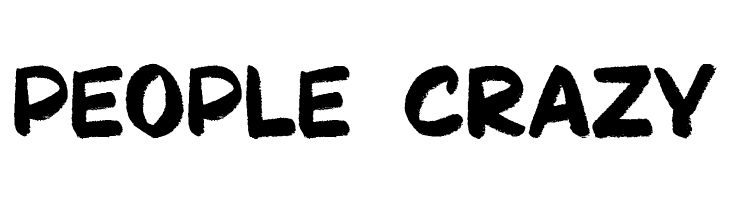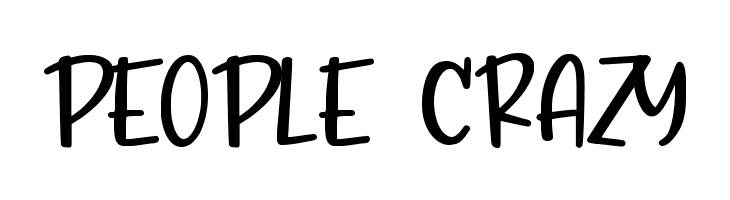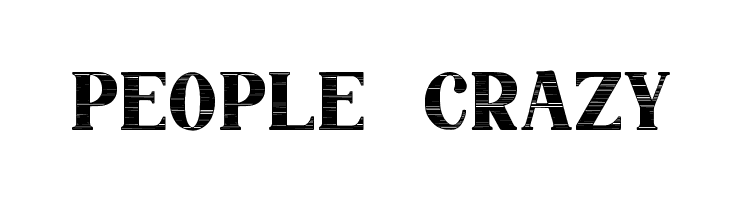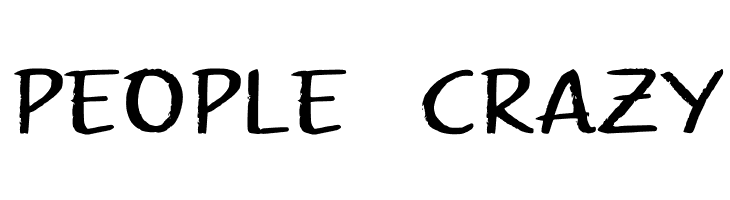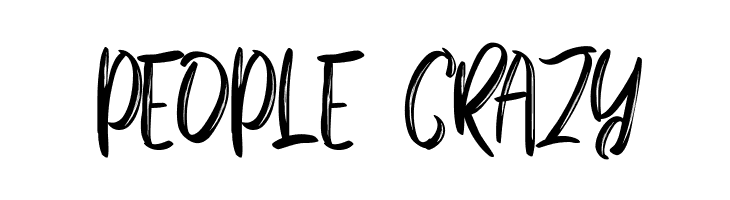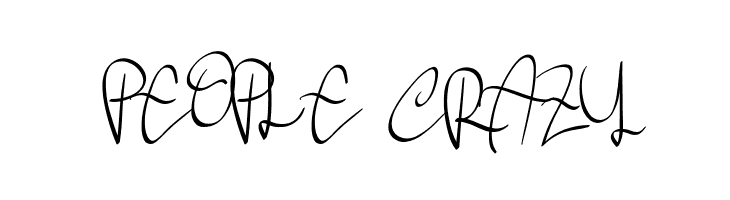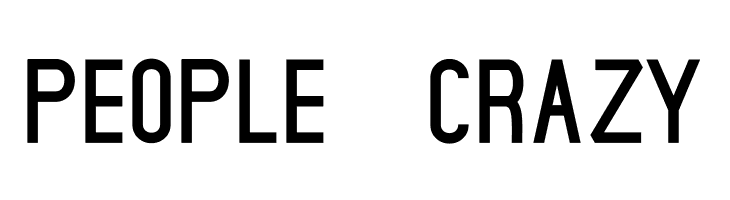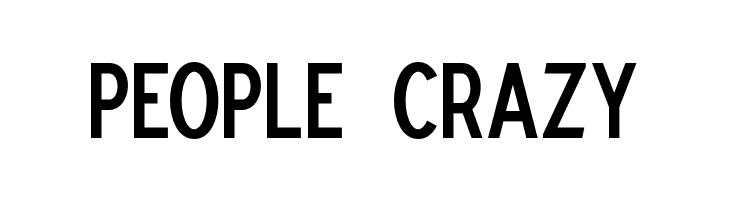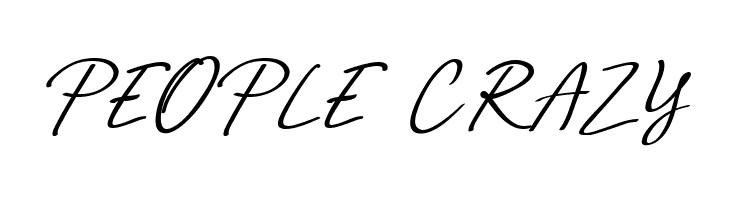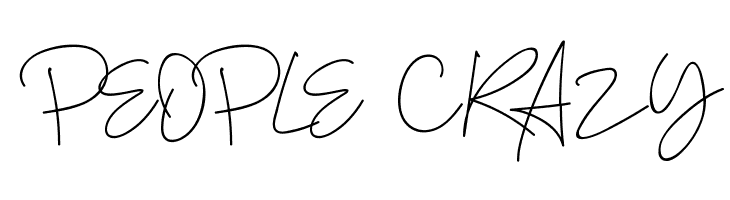
An elegant and flowing script font with interconnected letterforms.
A modern, clean sans-serif font with a slightly condensed style.
A bold, modern sans-serif font with clean lines and a slightly condensed style.
An elegant and decorative script font with flowing cursive design.
A decorative script font with elegant, flowing curves and ornate swirls.
A modern, geometric sans-serif font with a sleek and condensed style.
A bold, handwritten font with dynamic and expressive strokes.
A sleek, modern font with elongated, narrow characters and consistent stroke width.
A dynamic and expressive handwritten font with fluid strokes and natural flow.
A bold, expressive handwritten font with a brush-like texture.
A playful, handwritten font with bold strokes and a dynamic style.
A lively handwritten font with dynamic strokes and a playful style.
A playful handwritten font with flowing, connected letterforms and a whimsical style.
Elegant cursive script with a handwritten feel.
A lively and expressive handwritten font with fluid, connected strokes.
A lively, cursive handwritten font with expressive, flowing strokes.
An elegant, flowing script font with intricate swirls and loops.
An elegant script font with intricate swashes and flowing lines.
A playful, decorative font with unique patterns in each character.
A stylish and elegant script font with fluid, cursive letterforms.
A playful and flowing script font with elegant curves and smooth strokes.
A bold, angular font with a modern and geometric style.
A bold, modern script font with interconnected characters and a dynamic flow.
A bold, slanted font with thick strokes and a dynamic style.
A modern, interconnected script font with a chain-like appearance.
A modern, script-inspired font with smooth, flowing lines and a slightly condensed style.
A bold, expressive handwritten font with a lively, energetic style.
A dynamic and fluid script font with elegant, flowing letterforms.
An elegant, flowing script font with a natural handwriting style.
A dynamic and flowing script font with elegant, fluid letterforms.
A playful, hand-drawn font with a chalk-like, informal style.
A playful, chalk-like font with bold, textured strokes.
A bold, playful font with a chalk-like striped texture and strong serifs.